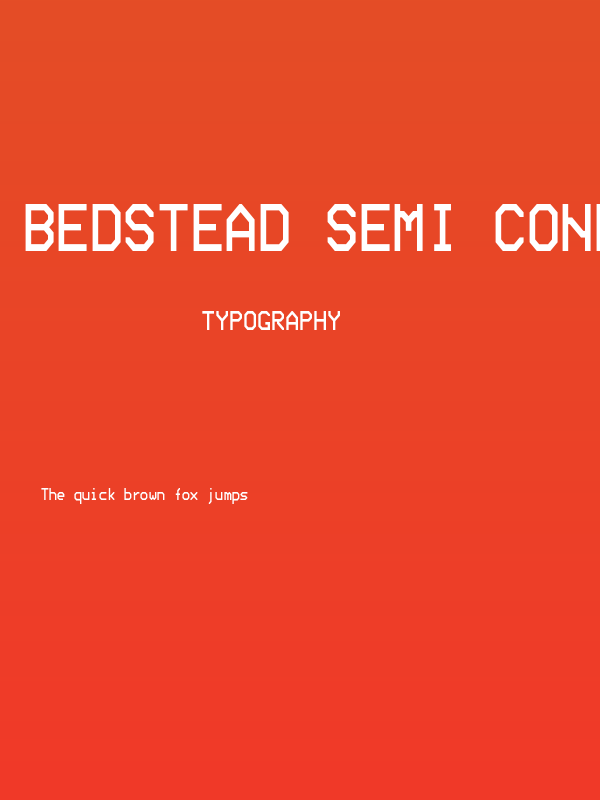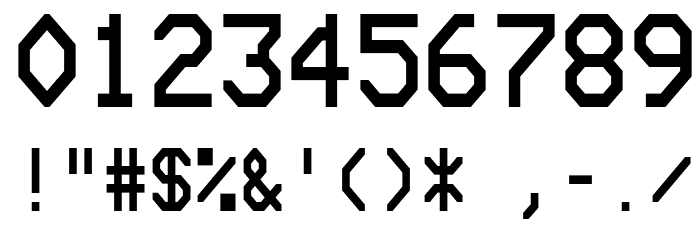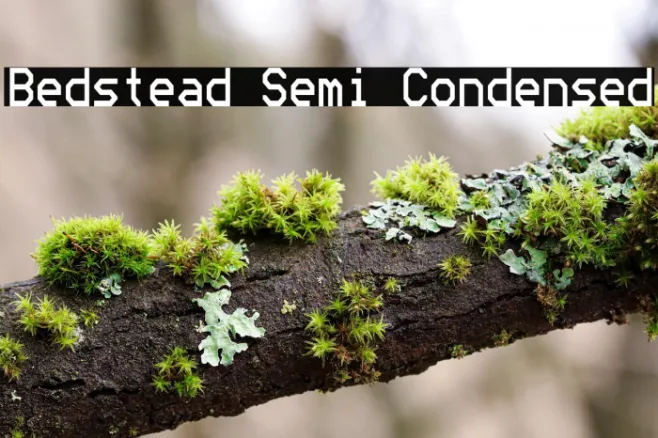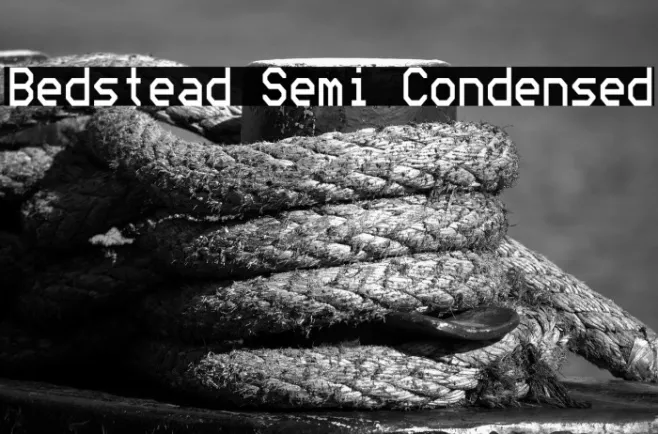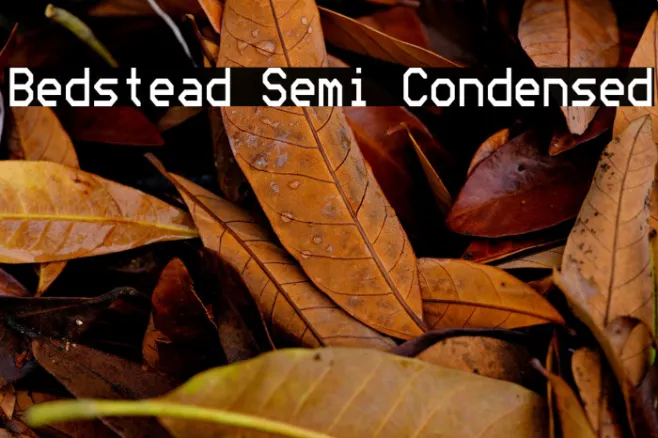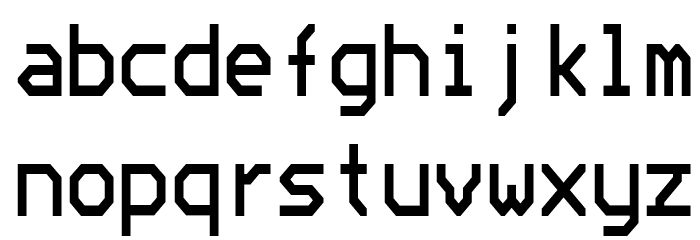
Bedstead Semi Condensed Font
Bedstead Semi Condensed Description
This font features a geometric and monospaced design, characterized by its uniform stroke width and angular shapes. The letters are structured with a mechanical precision, giving it a technical and modern appearance. The uppercase and lowercase characters maintain a consistent height, contributing to its orderly and clean look. The numerals and special characters follow the same geometric style, ensuring a cohesive visual identity across all glyphs. Its semi-condensed width allows for efficient use of space without compromising readability, making it suitable for both digital and print media.
| Use Case | Coding, Technical documentation, Branding |
| Proposed Projects | Ideal for coding environments, technical documentation, and modern branding projects. |